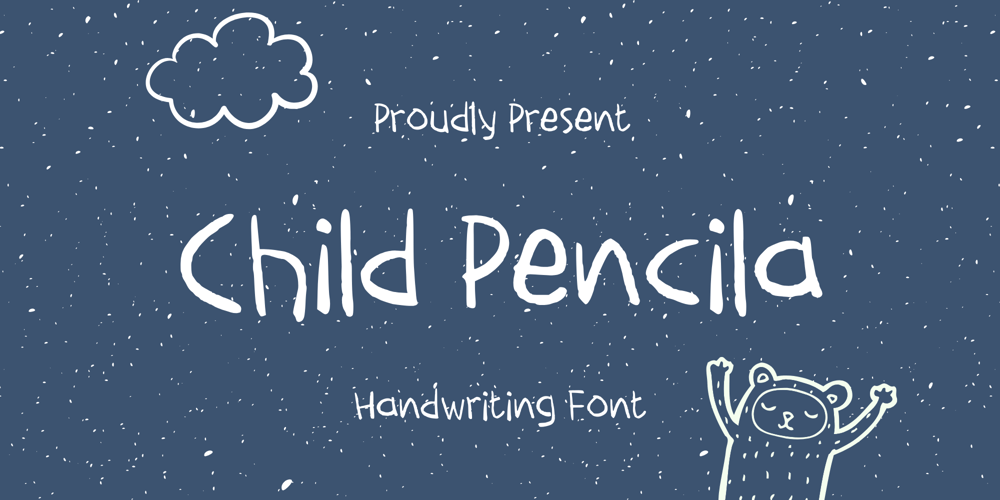
Child Pencila Font Family was designed by Nur Aiysah Amalia and published by Aisyah. Child Pencila contains 1 styles and family package options. Child Pencila is a cute and friendly handwritten font. Its natural and unique style makes it incredibly fitting to a large pool of designs. The only limit is your imagination!